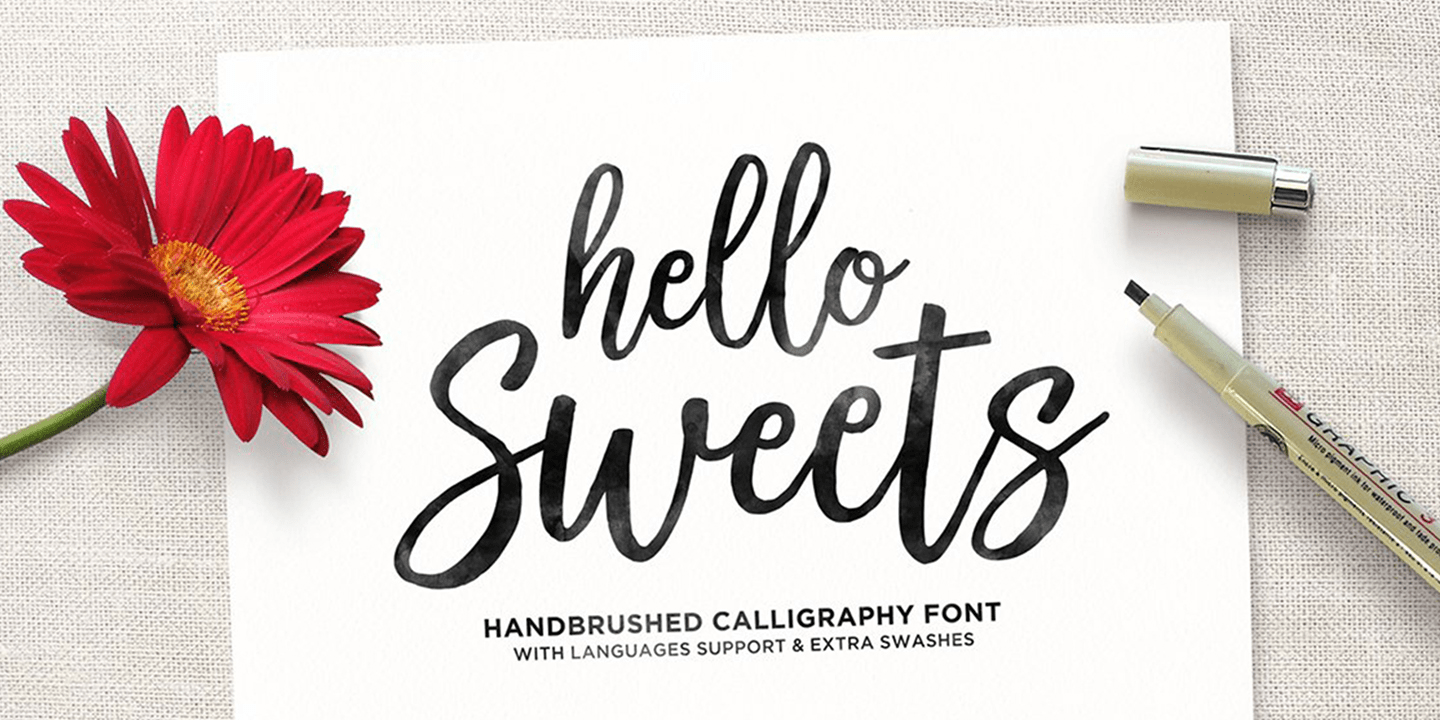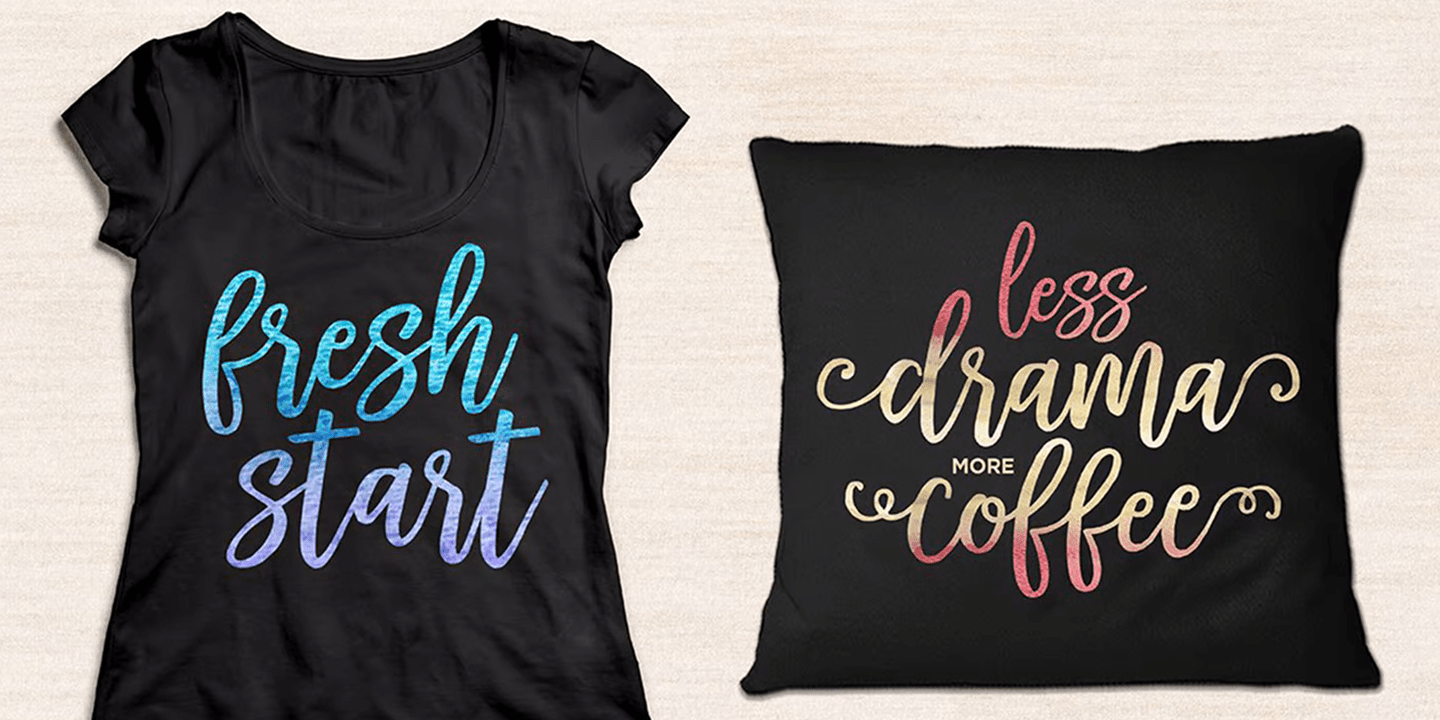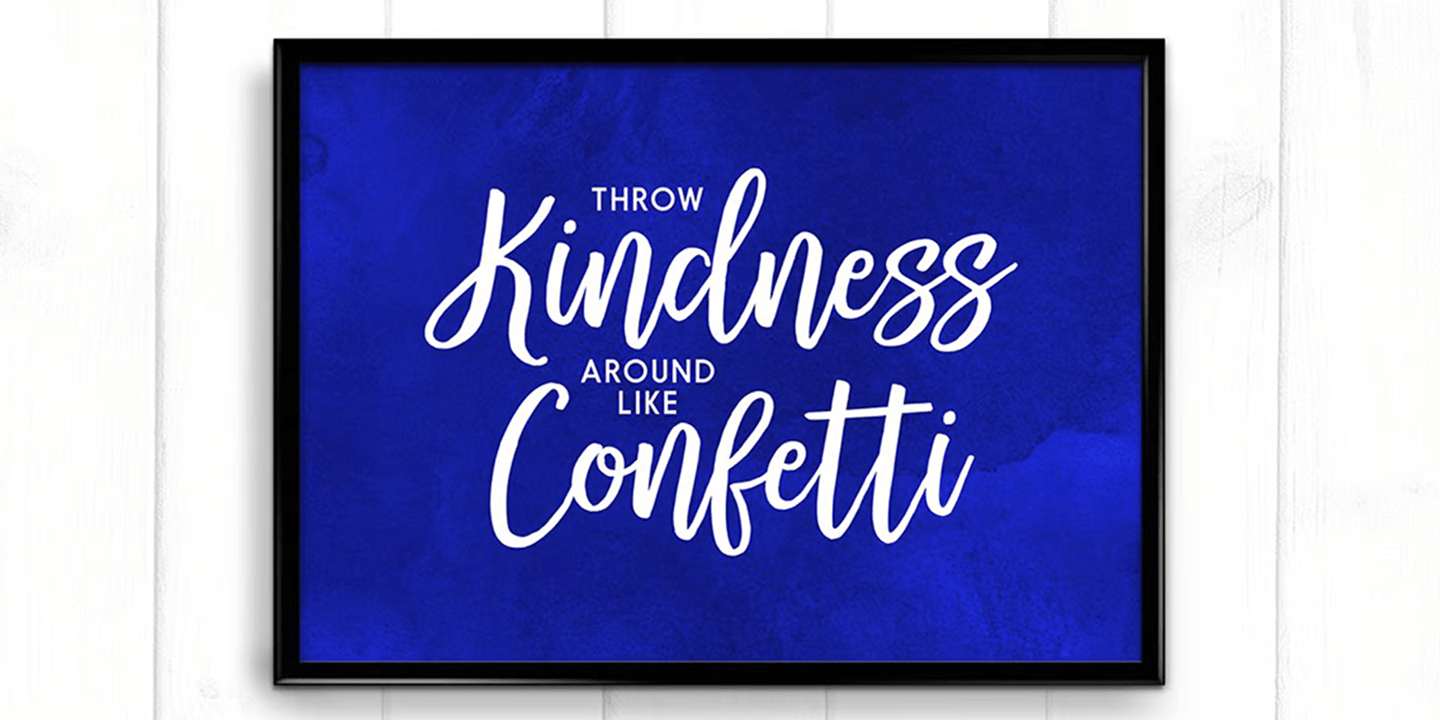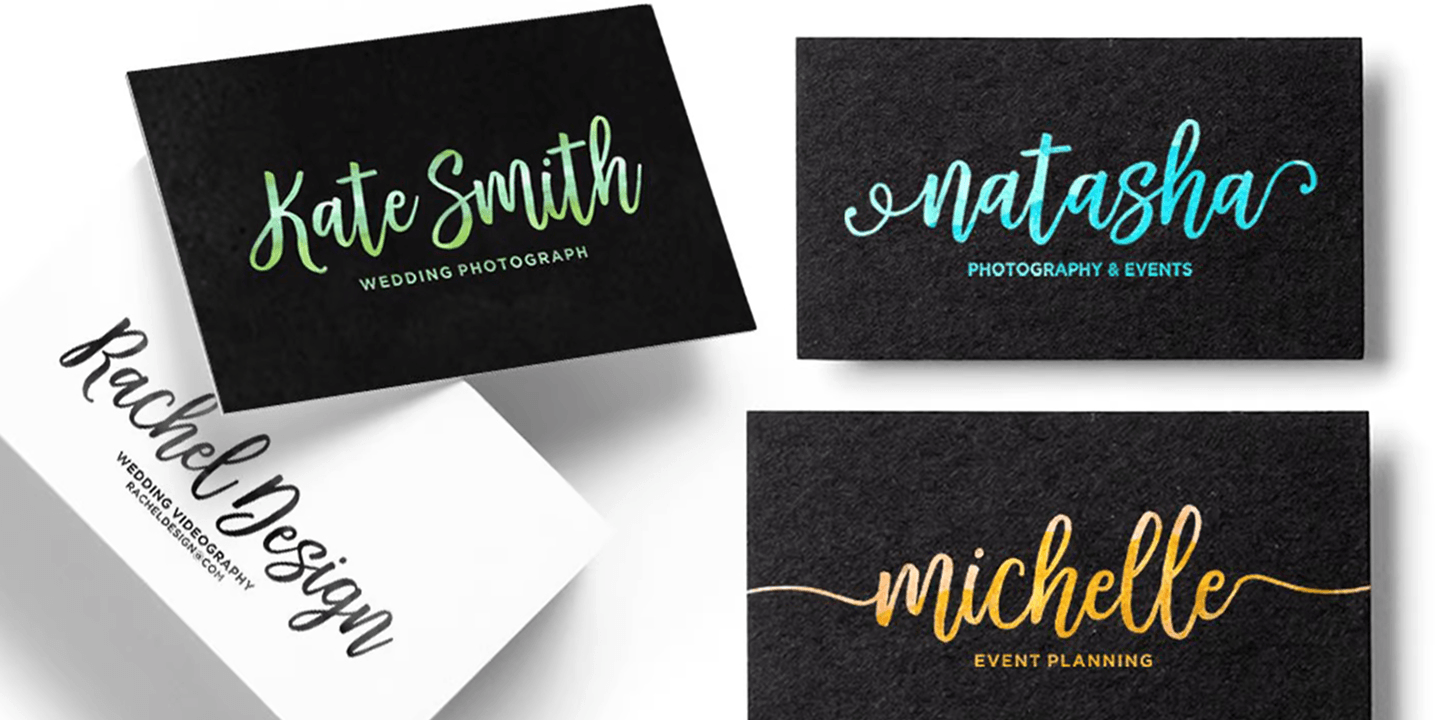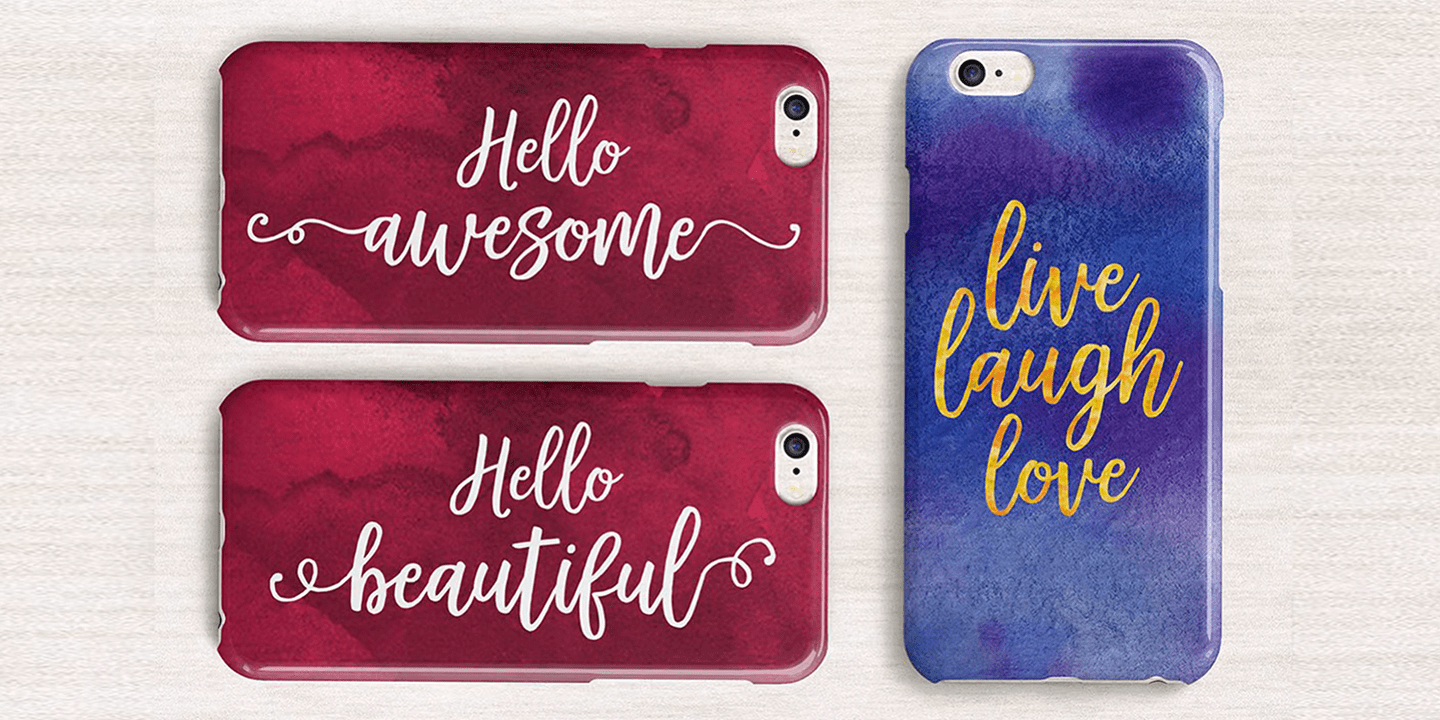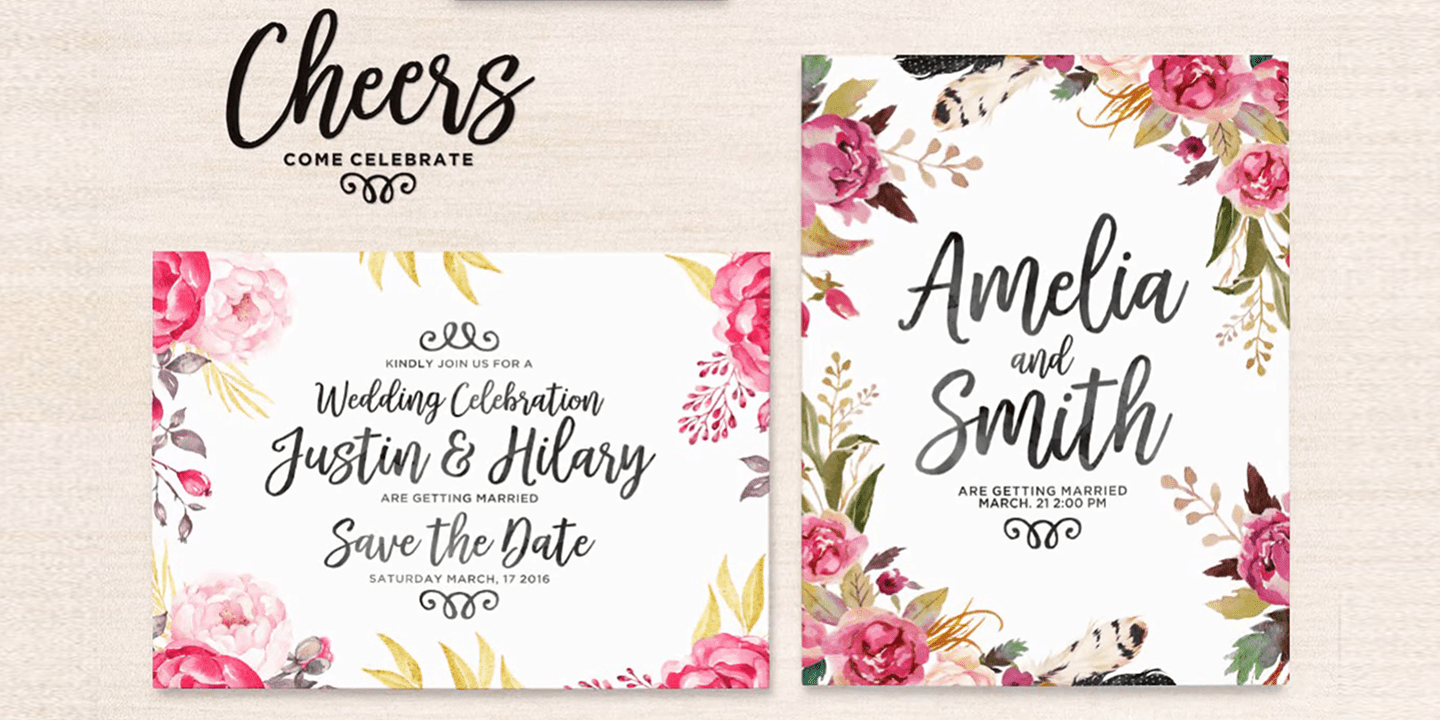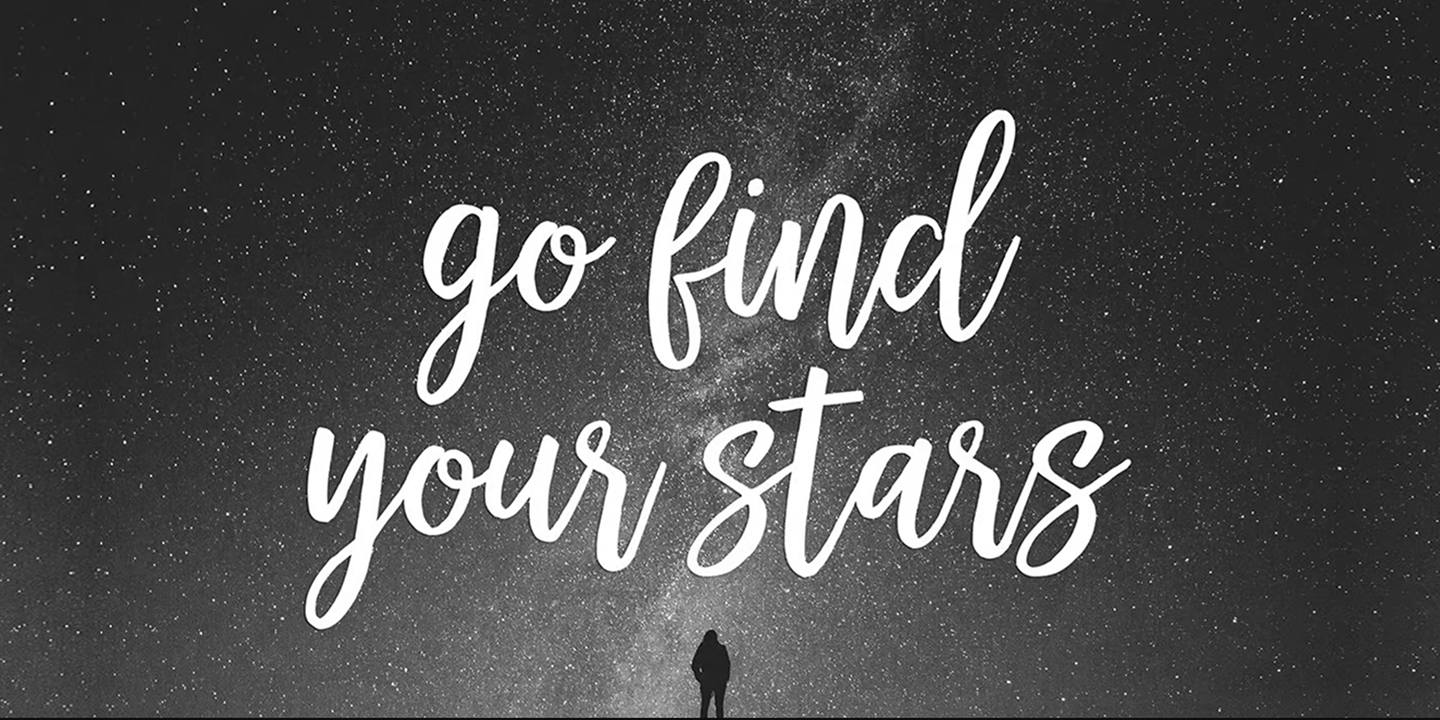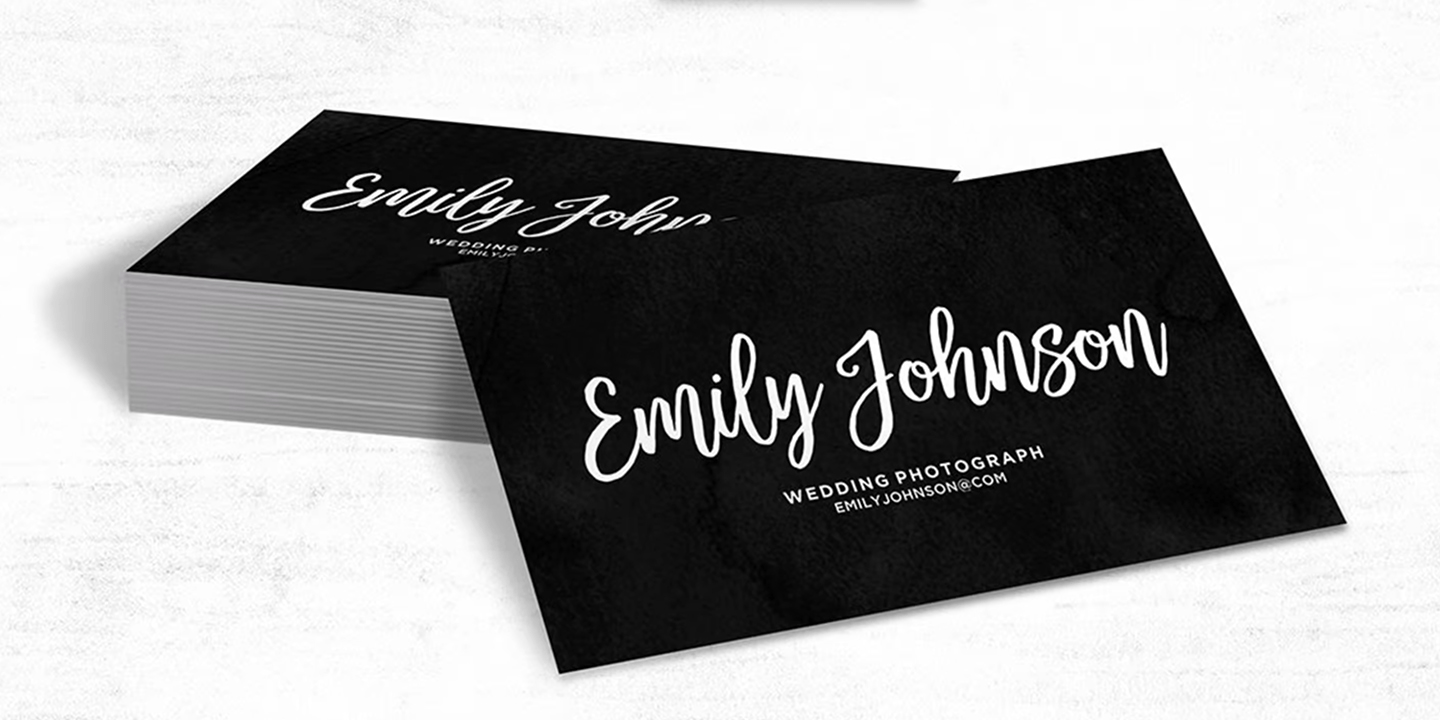
Hello Sweets
Font Family by Seniors Studio
Hello Sweets script is a hand-brushed modern calligraphy script font, created with both pen & brush. It has dancing baselines with separate swashes that can be applied to the beginning and ends of all lowercase. The letters were painted on paper, scanned, vectorized and carefully made into a font. Hello Sweets includes several ligatures, alternates and international support for most western languages.
For the separate swashes font, type lowercase a-z for the beginning swashes and end swashes (can not access to a glyphs panel. need to add swashes manually). Ideal for logo, wedding invitations, business card, poster, merchandise, greeting cards, prints, blog banners, apparel, quotes and so much more!